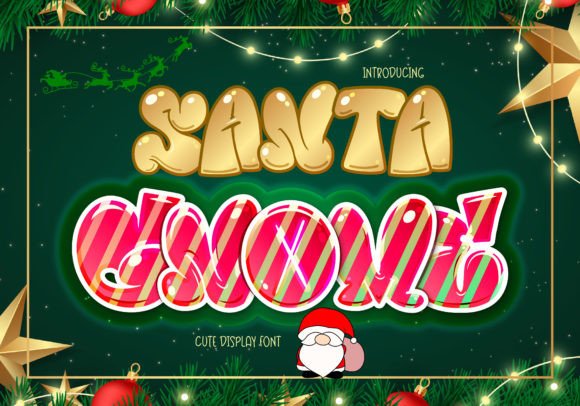
Introducing Santa Gnome, the enchanting display font that sparks joy and captivates hearts. This delightful creation by BB Type Studios is more than just a font; it's a whimsical journey into a world of imagination and playfulness.
Santa Gnome's bubbly and friendly demeanor brings life to any design, making it the perfect choice for whimsical projects. Its charming curves and playful flourishes evoke a sense of nostalgia and warmth, instantly connecting with your audience.
Immerse yourself in a world of creativity with Santa Gnome. Whether you're designing children's games, crafting eye-catching logos, or creating enchanting posters, this font adds a touch of magic to every project. Its versatility knows no bounds, extending to branding, packaging, and even social media graphics.
Santa Gnome doesn't just elevate your designs; it captivates and enchants. Its unique personality shines through in every letter, leaving a lasting impression on your audience. Experience the transformative power of Santa Gnome and unlock a world of endless possibilities.
With Santa Gnome, every creation becomes a captivating tale, a story waiting to be told. Embrace its charm and let your imagination soar. Transform your designs into masterpieces, captivating your audience with every stroke of this remarkable font.